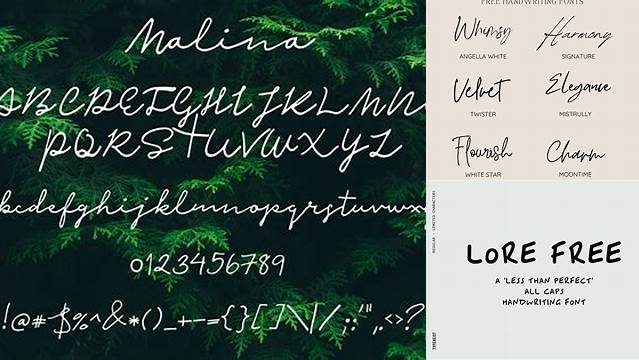
Free Handwritten Fonts On Behance: Your Ultimate Guide
Hey guys! If you're anything like me, you're always on the lookout for cool, unique fonts to spice up your designs. And if you're a fan of that personal, human touch, you've probably fallen head-over-heels for handwritten fonts. Guess what? Behance is a goldmine for these treasures! In this guide, we're diving deep into the world of free handwritten fonts on Behance, exploring everything from where to find them to how to use them effectively. Get ready to level up your design game with some awesome, hand-crafted typography! Let's get started, shall we?
H2: Discovering the Best Free Handwritten Fonts on Behance: A Beginner's Guide
Alright, so you're ready to dive into the wonderful world of free handwritten fonts on Behance, but where do you even begin? Fear not, my friends! Finding amazing fonts on Behance is easier than you think. First things first: head over to Behance.net. In the search bar, type in keywords like “free handwritten font,” “script font free,” or even more specific terms like “brush font free” or “marker font free.” You'll be amazed at the results! Now, here's a pro tip: use the filters! Behance allows you to filter by “free to use,” which is a lifesaver. This ensures you're only seeing fonts that you can legally download and use without getting into any copyright trouble. Scroll through the results and keep an eye out for fonts that catch your eye. Look for previews that show how the font looks in different contexts – on posters, logos, or even mockups. This will help you visualize how the font might look in your own projects. Make sure to read the font description carefully. The designer usually includes information about the license (personal or commercial use) and any specific guidelines for use. Some fonts are free for personal projects but require a license for commercial use, so always pay attention to those details! Take your time to browse and explore. Don't be afraid to download a few different fonts and try them out. That's the best way to find the perfect handwritten font for your needs. And hey, don't forget to show some love to the designers by liking their work and maybe even leaving a comment! After all, they're sharing their awesome creations with you for free. So go forth, explore, and have fun finding those perfect handwritten gems on Behance!
Finding the right font is like finding the right outfit – it needs to fit your personality! When you're scrolling through Behance, think about the vibe you're going for. Are you aiming for a playful, whimsical look? A more elegant and refined feel? Or maybe something bold and edgy? Different handwritten fonts evoke different emotions. A bubbly, rounded font might be perfect for a children's book, while a more calligraphic script could be ideal for a wedding invitation. Consider the context of your project. What are you designing? A logo? A website header? A social media graphic? The purpose of your design will influence the type of handwritten font that works best. Also, think about readability. Some handwritten fonts are super stylish but can be a little hard to read, especially at smaller sizes. Make sure the font is legible and that the message of your design is clear. Experiment with pairing your chosen handwritten font with other fonts. Sometimes, a handwritten font works best as a headline or accent, while a more straightforward font is used for the body text. Try different combinations to find what looks best. And finally, don't be afraid to experiment! Download a variety of fonts and play around with them in your designs. The more you experiment, the better you'll become at choosing the right font for any project.
H2: The Advantages of Using Free Handwritten Fonts in Your Design Projects
Alright, let's talk about why you should even bother with free handwritten fonts in the first place. What's the big deal, right? Well, there are actually a ton of advantages! First off, using handwritten fonts adds a unique, personal touch to your designs. They give your work a more human feel, making it more relatable and engaging for your audience. In a world filled with generic, computer-generated fonts, handwritten fonts help you stand out from the crowd. They can inject personality and character into your projects, making them more memorable and distinctive. Secondly, they're versatile. Handwritten fonts can be used in a variety of design projects, from logos and branding to social media graphics and website headers. They work well for both print and digital designs, adding a touch of creativity wherever they're used. Then, there's the emotional impact. Handwritten fonts can evoke a wide range of emotions, from playfulness and joy to elegance and sophistication. The specific font you choose can influence how your audience perceives your brand or message. For example, a whimsical handwritten font might be perfect for a children's product, while a more refined script could be ideal for a luxury brand. Also, you save money! As the name suggests, free handwritten fonts are free! This is a huge advantage, especially for those on a budget. You can access a vast library of fonts without spending a dime, allowing you to create professional-looking designs without breaking the bank. This is especially beneficial for small businesses, freelancers, and anyone who's just starting out. Not only do they save you money, but using these fonts also allows you to express creativity and uniqueness in your designs, giving them a signature touch that sets your designs apart.
Handwritten fonts are a powerful tool for communicating your brand's personality. They can instantly convey warmth, approachability, and authenticity. Consider the message you want to convey and choose a font that reflects your brand's values and aesthetic. A carefully chosen font can establish a strong connection with your target audience and build brand recognition. Think about the target audience. Is it a younger, more playful demographic? Or a more sophisticated audience? The right handwritten font can help you connect with your audience on a deeper level and make your designs more appealing. When choosing a font, consider legibility, especially if it's used for longer text passages. Make sure the font is easy to read and doesn't strain the eyes. Pair your handwritten font with other complementary fonts to create a visually appealing design. This will add depth and interest to your work. The right combination of fonts will enhance the overall visual appeal of your design, making it more effective in conveying your message.
H2: Top Behance Designers Offering Stunning Free Handwritten Fonts
Okay, let's get down to brass tacks and highlight some of the awesome designers on Behance who are generously offering free handwritten fonts. These are the folks you want to keep an eye on! They're constantly creating amazing fonts that you can use to elevate your designs. Firstly, we have some of the most active designers like Billy Argel. He's a prolific creator with a knack for producing diverse, high-quality handwritten fonts, from brush scripts to elegant calligraphic styles. His fonts are often free for personal use, so always check the license. He's a great place to start. Then, there's Misti's Fonts, who is another top font creator. Misti offers a range of delightful handwritten fonts, many of which are available for free download. They're known for their playful and approachable fonts, ideal for projects that need a friendly touch. Get Studio, is a studio that produces a variety of creative fonts. They often have free options that are perfect for adding a unique touch to your designs. Be sure to check the license carefully to understand how you can use their fonts. Also, it's important to appreciate that these designers pour their creativity and skill into crafting these fonts, so be sure to check their terms of use to ensure you're giving credit where it's due. They put time and effort into their creations, so it's super important to respect their terms of service. Always remember to check the license before you download and use any font. Some fonts are free for personal use only, while others offer commercial licenses. Familiarize yourself with the licensing terms to avoid any legal issues. Consider the style of the font and how it aligns with your brand's personality. Choose fonts that complement your brand's message and aesthetic. This will enhance the overall visual appeal and impact of your designs. Also, consider the context of your project. Will the font be used for headlines, body text, or both? Choose a font that is legible and effective in the intended application. A well-chosen font can elevate your design, making it more engaging and memorable.
Additionally, many emerging designers offer free handwritten fonts on Behance. Keep an eye on new talent and explore their portfolios for unique and fresh font options. Supporting these designers helps them continue to create amazing fonts for everyone. Always show your appreciation by liking, commenting, and crediting designers. Positive feedback encourages them to create more amazing fonts and gives them recognition for their talent. Sharing your designs that feature their fonts is also a great way to give them a shout-out. It helps them reach a wider audience and showcases their work.
H2: Essential Tips for Downloading and Installing Free Handwritten Fonts from Behance
Alright, so you've found some amazing free handwritten fonts on Behance and you're ready to use them. But how do you actually get them onto your computer? Let's break down the process. First, download the font files. Once you've found a font you like on Behance, look for the download link provided by the designer. It might be a direct download link or a link to an external website like Google Fonts or Font Squirrel. Click the link to start the download. Then, you’ll need to unpack the downloaded file. Most font files come in a ZIP archive. Double-click the ZIP file to open it, and then extract the font files (usually with the .TTF or .OTF extension) to a folder on your computer. Next, install the fonts on your operating system. The installation process varies slightly depending on whether you're using Windows or macOS. On Windows, right-click the font file and select “Install.” On macOS, double-click the font file, and then click “Install Font.” Now, you have to make sure your design software recognizes the new font. After installing the font, you might need to restart your design software (like Photoshop, Illustrator, or Canva) for the new font to appear in the font list. Finally, test the font to make sure it’s working properly. Open your design software and select the text tool. Type some text and try out your new handwritten font. If it appears in the font list, you're good to go! If it doesn't, double-check that you installed the font correctly and restarted your design software. And remember: always respect the license. Even though the font is free, it may have specific usage restrictions. Before using the font in any project, read the license agreement provided by the designer. Always cite the font's creator, especially if requested by the license. Credit the designer in your design or in the project description. This is a sign of respect and helps promote their work.
When downloading fonts from Behance, it's important to be cautious and protect your computer from malware. Always download fonts from reputable sources and avoid clicking on suspicious links. Consider using a font management program to organize your fonts. Font management programs allow you to easily install, activate, and deactivate fonts. This helps keep your font library organized and makes it easy to find the fonts you need. Also, make sure you check the font's compatibility with your design software. Most fonts are compatible with a wide range of software, but some might have compatibility issues. If you encounter any problems, consult the font's documentation or contact the designer for support. And of course, regularly back up your font library. Backing up your fonts ensures that you don't lose them in case of a computer crash or other data loss. Keep your fonts in a safe place so you can access them at any time. By following these tips, you can safely download and install free handwritten fonts from Behance and start creating stunning designs.
H2: Handwritten Fonts for Branding: Building a Unique Brand Identity
Handwritten fonts are a fantastic tool for branding, allowing you to create a unique and memorable brand identity. They add a personal touch that resonates with your audience, making your brand feel more authentic and human. Think about the message you want to convey. Do you want to be seen as friendly, playful, elegant, or sophisticated? Your handwritten font should reflect these qualities. Create a mood board with the visual elements of your brand. This will help you choose a font that harmonizes with your brand's overall aesthetic. Also, a consistent use of a handwritten font throughout your branding material will help establish your brand identity and will help your audience recognize your brand at first glance. From logos and website headers to social media graphics and packaging, ensure that your chosen font is used consistently. Test your selected font in various applications. Try it out in different sizes, colors, and contexts to see how well it performs. Make sure it's legible and visually appealing across all platforms. Then, think about your target audience. Choose a font that resonates with your audience's preferences and values. A font that speaks to your audience will create a strong connection and build brand loyalty. Pair your handwritten font with complementary fonts. Balance the handwritten style with other fonts to create a harmonious and visually appealing design. This will add depth and interest to your branding. Always consider the long-term use of your font, as you want a font that will stand the test of time. Choose a font that feels timeless and can adapt to your brand's evolving needs. A well-chosen font is an investment in your brand's future. A thoughtfully selected font will leave a lasting impression and build brand recognition. Your brand's identity should be reflected in the message it conveys through the fonts used.
Your brand's visual elements should be consistent. The chosen font should harmonize with other visual elements, such as colors, imagery, and the overall design style. This creates a cohesive and professional brand image. Your handwritten font can play a key role in creating a memorable brand image. A unique and well-chosen font will make your brand stand out in a crowded marketplace. Your font is a key element of your brand's personality. It can convey your brand's values, tone, and character, shaping how your audience perceives your brand. In order to build trust and recognition, choose a font that aligns with your brand's core values and identity, it will help you to make a lasting impression on your audience.
H2: Handwritten Fonts in Logo Design: Making a Statement
Using handwritten fonts in logo design can make a powerful statement and help your brand stand out. Handwritten fonts offer a unique and personal touch, which can create a memorable and impactful logo. First, consider your brand's personality. Does it align with the characteristics of a handwritten font? Handwritten fonts are ideal for brands that want to communicate warmth, approachability, and authenticity. Select a font that reflects your brand's unique personality. Choose a font that is legible and easy to read. A well-designed logo should be clear and understandable, even at smaller sizes. Ensure that the handwritten font you choose is easy to read across various applications. Ensure that your font is versatile. Your logo may be used in multiple places, such as websites, social media, and marketing materials. It is important that your font works well across all platforms. Test your logo in various contexts. Try it out on different backgrounds, in different sizes, and with different colors. This will help you ensure that your logo looks good in any situation. Remember, you can also use your handwritten font in conjunction with other design elements. Consider using a handwritten font in combination with a simple, clean typeface to create a balanced and visually appealing logo. Before you make a final decision, you must conduct a thorough review of existing logos. Research logos in your industry or market to see how handwritten fonts are used and to identify opportunities for differentiation. Avoid replicating designs that are already in use, as this is critical. Your goal should be to create a unique and memorable logo that sets you apart from the competition. A thoughtful logo design is a valuable investment in your brand's future. The logo you choose can make a lasting impression and build brand recognition. Your logo is often the first thing that people see when they encounter your brand. Make sure it reflects the essence of your brand and engages your target audience. A well-designed logo creates a positive first impression, building trust and recognition.
Your logo will be featured in numerous formats. Choose a font that is adaptable to various formats, sizes, and applications, such as websites, social media, and print materials. This will help you ensure that your logo looks good in any situation. Also, before launching your logo, get feedback from others. Show your logo design to colleagues, friends, or potential customers to get their feedback. Use their feedback to refine your design and ensure that it effectively communicates your brand's message. After your logo is complete, it is important to ensure that you protect it by trademarking it. This prevents others from using your logo and helps to protect your brand. By following these steps, you can use handwritten fonts to create a memorable and impactful logo that represents your brand in a compelling way.
H2: Choosing the Right Free Handwritten Font for Your Project
Choosing the right free handwritten font is a crucial step in ensuring your design looks its best. The font you choose will significantly impact the overall look and feel of your project. The first thing you need to do is define your project’s purpose and target audience. What message do you want to convey? Who are you trying to reach? Understanding your audience's preferences and the goal of your design will guide you to choose the most suitable font. Keep in mind that different fonts evoke different emotions. Think about the personality you want to portray. Do you want your design to feel playful, elegant, edgy, or professional? Your font choice will set the tone. Then, consider the context. Is it for a logo, a website header, or body text? The context will influence the readability, style, and impact of your chosen font. Next, make sure that the font you choose has great readability. Although handwritten fonts can be lovely, some are tricky to read, especially in smaller sizes. Select a font that is legible and clear in any context. Try testing the font in various sizes and applications to ensure it remains readable. Remember, the font should complement other design elements. Consider how your handwritten font will work with other fonts and design elements like images, colors, and layouts. Create a harmonious and visually appealing design. Always check for licensing restrictions. Even though you're looking for free handwritten fonts, some fonts have limitations. Ensure you understand the font's licensing terms before use, paying attention to whether the font is available for personal or commercial projects. Try a few different fonts. Experiment with different fonts in your design to see which ones work best for the intended purpose. This will help you to find the perfect match. Remember that the choice of font is critical in order to showcase your design and to attract your target audience. Use fonts strategically to convey your message and to enhance the impact of your design. The right font can enhance your brand, creating a memorable and appealing design that resonates with your target audience. To ensure your design's success, consider the visual elements, such as colors, images, and overall design style, to create a cohesive look.
Also, you can always explore various resources for font inspiration. Check out websites like Behance, Dribbble, and Pinterest to discover the latest trends and font styles. These sites have many examples of designs that use handwritten fonts, giving you inspiration and helping you to make your own choices. Also, learn about font pairing. Experiment with different fonts and choose fonts that complement each other and work well together. Pair your handwritten font with a simple, clean font for the body text. This is a great approach, allowing you to balance the personality of the handwritten font while keeping the text clear and easy to read.
H2: Handwritten Fonts for Websites: Enhancing User Experience
Using handwritten fonts on websites can significantly enhance user experience, creating a more engaging and visually appealing online presence. However, it's important to use them strategically. Handwritten fonts can add personality and character to your website. A unique font choice can make your site stand out from the crowd, making it more memorable and distinctive. Handwritten fonts are ideal for branding purposes, conveying warmth, authenticity, and creativity. A well-chosen font can make your brand feel more relatable and human. Remember to consider readability. While a handwritten font can look great, make sure it is easy to read on screen. Choose a font that is clear and legible, especially for body text. Test your chosen font on various devices and screen sizes to ensure a good user experience. In addition, you can use handwritten fonts for headings, titles, and other design elements. This will add personality and flair to your website, while reserving clear, legible fonts for body text. Choose a font that complements the overall design and enhances its visual appeal. You can also integrate them with other design elements, such as images, colors, and layouts. This helps create a cohesive design. You should always create a balance with readability, as handwritten fonts can improve the user experience when used in the right context. If you want to use them for body text, consider increasing the font size and providing ample line spacing. Select a font that works well on various devices, including smartphones, tablets, and desktops. Make sure your website adapts to different screen sizes, ensuring that your font remains readable and looks good on all devices. Test your chosen font on different browsers to ensure that it renders correctly. This will prevent any issues that might affect user experience. And most importantly, always check licensing. Make sure that the free handwritten font you choose has the correct licensing for web use. Some fonts may be free for personal use only, and you must ensure that you comply with all terms and conditions.
Handwritten fonts are also a great way to show creativity and to attract your target audience. Use the fonts to give your website a unique touch and engage your audience. Be sure to choose fonts that resonate with your audience's preferences and values, creating a strong connection. Websites should be easy to navigate and to get information to users, and a carefully chosen font can play a key role in creating a positive user experience. Avoid using too many different fonts on your website, as this can make your site appear cluttered and unprofessional. Choose a few fonts that complement each other and use them consistently throughout your site. If you incorporate handwritten fonts, select a font that reflects your brand's message and aesthetic and also consider website accessibility to ensure your font choices are user-friendly to all visitors. Ensure that your website complies with accessibility standards, such as providing alt text for images and ensuring that your content is easy to read for those with visual impairments. The ideal choice will depend on the purpose and target audience of your website. Choosing a font that reflects your website's tone will enhance its impact and user appeal.
H2: Handwritten Fonts and Social Media: Captivating Your Audience
Handwritten fonts are a secret weapon for social media, allowing you to create captivating visuals that stand out from the endless stream of content. Social media is all about grabbing attention, and a unique font choice can do just that! Use handwritten fonts to add a personal touch, making your content feel more authentic and relatable. Handwritten fonts convey warmth, creativity, and personality, making your brand more approachable. They're perfect for conveying a human connection. Consider using them for headlines, quotes, or short snippets of text. Handwritten fonts are especially effective in attention-grabbing social media graphics. Experiment with different handwritten fonts that align with your brand's personality. A playful font might work for a fun brand, while a more elegant script would suit a luxury brand. Choose a font that complements your brand's message and enhances the visual appeal of your content. Remember, social media is a visual medium, so make sure your fonts are legible and easy to read. While handwritten fonts can be stylish, they must be easy to read on screen. Test your chosen font on different devices and platforms to ensure it renders correctly and remains readable. Using your handwritten font, you will want to use the font consistently to build brand recognition. Using the same font across multiple social media platforms reinforces your brand identity. Create templates that use your handwritten font to maintain consistency in your posts. Be sure to use them strategically, as handwritten fonts are especially effective when used in moderation. Use them sparingly in combination with other fonts to avoid overwhelming your audience. Handwritten fonts can also be incorporated into social media content. Experiment with different colors, backgrounds, and design elements to make your content visually appealing. Create visually engaging graphics that capture your audience's attention. And always check the licensing of the free handwritten font before using it. Make sure the font is licensed for commercial use on social media platforms. Familiarize yourself with the licensing terms to avoid any copyright issues. Make sure that you also optimize your social media content for different platforms. Customize your content for each social media platform to ensure it looks its best. Adapt your font choices, sizes, and design elements to fit the requirements of each platform. A great choice for social media is to integrate your handwritten fonts with other fonts. Pair your handwritten font with a complementary font. The contrast of styles will enhance the impact of your visuals. Balance your font choices with other visual elements. You can include relevant images, videos, and design elements. The combination of fonts and visual elements will enhance your brand's message and make it memorable.
When sharing your creations online, be sure to get feedback. Ask your audience for their opinions on your content. Use this feedback to refine your designs and ensure your social media efforts are effective. Social media provides an opportunity to engage your audience and build brand recognition. Choosing a unique font is a great way to stand out from the crowd. Using it consistently across platforms helps to build brand awareness. By following these tips, you will learn how to use handwritten fonts to captivate your audience on social media. Be sure to choose fonts that represent your brand's message and appeal to your target audience.
H2: Handwritten Fonts for Print Design: Creating a Tactile Experience
Handwritten fonts are a great way to create a memorable and tactile experience in print design. Print design is all about the physical and sensory experience, and a handwritten font can add a unique touch that resonates with your audience. Add a human touch to your print materials. The use of a handwritten font creates a sense of warmth, authenticity, and connection, making your designs feel more personal. Create a unique identity. Stand out from the crowd by using a handwritten font that reflects your brand's unique personality and aesthetic. Incorporate them into various print materials. Use handwritten fonts in a variety of print applications. Handwritten fonts work well for flyers, brochures, business cards, and invitations, among others. Choose the right font style to match the purpose and tone of your design. Pair your chosen handwritten font with other fonts. Balancing the handwritten font with complementary fonts adds depth and visual interest to your designs. Consider the context of your print design. Ensure that your chosen handwritten font is easy to read and legible, especially at smaller sizes. Test your designs to make sure they remain readable. Be sure to consider printing. Choose a font that prints well and is suitable for your printing process. Test your font on a print proof to ensure it looks its best. And always verify the licensing terms to ensure that the free handwritten font you use is available for print use. Understand the restrictions that may apply. Use your handwritten fonts in combination with other design elements to enhance your printed materials. Be creative with your design, choosing relevant images, colors, and layouts to create visually appealing materials. Use them creatively in order to make your print designs memorable. Experiment with different layouts and design styles to create print designs that resonate with your target audience. Create a tactile experience by using creative printing techniques to showcase your work. Consider using different paper stocks, textures, and finishes to enhance the look and feel of your designs. Use textures to bring the designs to life. Create print designs that convey your brand's message and make a lasting impression. A well-executed design is an investment in your brand's success. Create print designs that create a positive first impression and generate brand recognition. Get feedback from others. Ask for opinions on your designs. This feedback can help you refine your designs and ensure they are effective. Print is also an opportunity to show creativity. Use handwritten fonts to showcase your brand's personality and make your brand stand out from the competition. Also, you want to remember the impact and make your designs memorable.
Print design is more than just creating visual content. A good design conveys your brand's message and leaves a lasting impression. When you use handwritten fonts for print design, you're not just creating something pretty; you're creating an experience. The right font, combined with other design elements, can create a tactile experience that engages your audience and strengthens your brand's identity. By following these tips, you can create stunning print designs that resonate with your target audience and leave a lasting impression.
H2: Handwritten Fonts and Accessibility: Designing for Everyone
When working with handwritten fonts, it's essential to consider accessibility to ensure your designs are user-friendly for everyone. Design is meant to be accessible to all users, including those with disabilities. There are a few things to remember when it comes to fonts. Firstly, always prioritize legibility. While handwritten fonts are unique and stylish, some can be challenging to read, especially for people with visual impairments. Choose a font that's clear, and easy to read. Before you settle on a specific font, test it out in different sizes and contexts to make sure it remains readable. Consider the size of the font. Be sure the font size is large enough, which can make the design more accessible to individuals with low vision. Use a font size that is easy to read, avoiding tiny text. Choose your font wisely. You must evaluate how well your chosen font will be viewed by people with low vision. Choose a font with clear letterforms and distinct shapes. You should also avoid overly stylized fonts that may be difficult to distinguish. In addition to size, consider the contrast. Ensure a high contrast between the font and the background. This helps people with low vision to read the text easily. Use a dark font on a light background or a light font on a dark background to achieve maximum contrast. Also, make sure that your design has a good color contrast ratio, following accessibility guidelines, to ensure the text is easy to read for people with color blindness. Provide alternative text. If you use text within images, include alternative text that describes the text. This is essential for users who use screen readers. Be sure to describe the text clearly and accurately. Remember that you should test your design with assistive technologies. Use screen readers and other assistive technologies to test your design's accessibility. You should verify that the content is easy to navigate and that the design works well with these technologies. Prioritize clean and simple designs. Avoid excessive design elements that can create distraction and confusion. Ensure that your designs are easy to navigate and that information is easy to find. Keep in mind that the font size and style are significant for creating an accessible design. Choose a font that's easy to read. Choose a font size that's large enough and use high contrast. Make sure your designs are accessible to all users, including those with disabilities.
Choose your handwritten font wisely, taking into account these key considerations for accessibility. Doing this, you can create designs that are both visually appealing and user-friendly for all audiences. Remember, accessibility isn't just a technical requirement; it's about creating designs that are inclusive. By prioritizing accessibility, you are ensuring that your designs can be enjoyed by everyone. When you create accessible designs, you also improve your website's SEO. By following these tips, you can ensure that your designs are accessible and inclusive to all.
H2: Free Handwritten Fonts: Best Practices for Commercial Use
When it comes to free handwritten fonts and commercial use, there are a few key best practices to keep in mind. Even though a font is free, there are usually terms and conditions. You need to familiarize yourself with the license. The first rule is to always read the fine print. Every font has a license that outlines how you can use it. Some free handwritten fonts are only for personal use, meaning you can't use them for commercial projects like websites, logos, or marketing materials. Others have commercial licenses that allow for wider use. If you intend to use a font for commercial purposes, carefully review the license to understand the permissions and any restrictions. Always look for the license associated with the font. This is often found in the download file or on the designer's website. Be sure you know whether you can use the font for commercial projects. Always give credit to the designer. If the license requires attribution, be sure to give credit to the font designer. This means including their name and the font name somewhere in your project. This is a sign of respect for their work and helps promote their fonts. Check the license for any restrictions. Some licenses may have restrictions on how you can use the font. Be sure to understand these restrictions and comply. Many designers offer paid licenses for specific uses. If the license doesn't cover your intended commercial use, consider purchasing a commercial license from the designer. This ensures you're using the font legally and supporting the designer. Consider the font's usage limitations. Some fonts may have limitations on the number of times they can be used, or they may only be used in certain types of commercial projects. You need to be aware of these before you start. Remember to keep a record of your licenses. Keep a record of all the font licenses you have, so you can easily refer back to them when needed. Know the difference between personal and commercial use. Personal use typically means using the font for non-commercial projects like personal blogs or social media posts. Commercial use is for any project that generates revenue or promotes a business. You must obtain the proper commercial licenses. Protect your work by following these practices and ensuring that you are complying with all licensing terms. You are respecting the designer's work and avoiding any legal issues. A great way to support designers is by crediting their work. If a license requires attribution, make sure to give credit to the font designer. This is a sign of respect for their work and helps promote their fonts. By adhering to these best practices, you can use free handwritten fonts for commercial purposes ethically and effectively.
In addition to following these best practices, it's important to stay up-to-date on font licensing. Licensing terms can change, so it's a good idea to periodically review the licenses for the fonts you use. Always download fonts from reputable sources. Be cautious of downloading fonts from untrusted websites, as these may contain malware or viruses. By taking these steps, you can use free handwritten fonts for commercial projects safely and legally. It is essential to understand the different licensing options. Many designers offer different licensing options for their fonts, including personal use, commercial use, and extended licenses. Make sure that you understand the difference between these options before you start using a font for a commercial project.
H2: Creating Custom Handwritten Fonts: Taking it to the Next Level
Alright, you’re digging handwritten fonts, and maybe you're thinking,